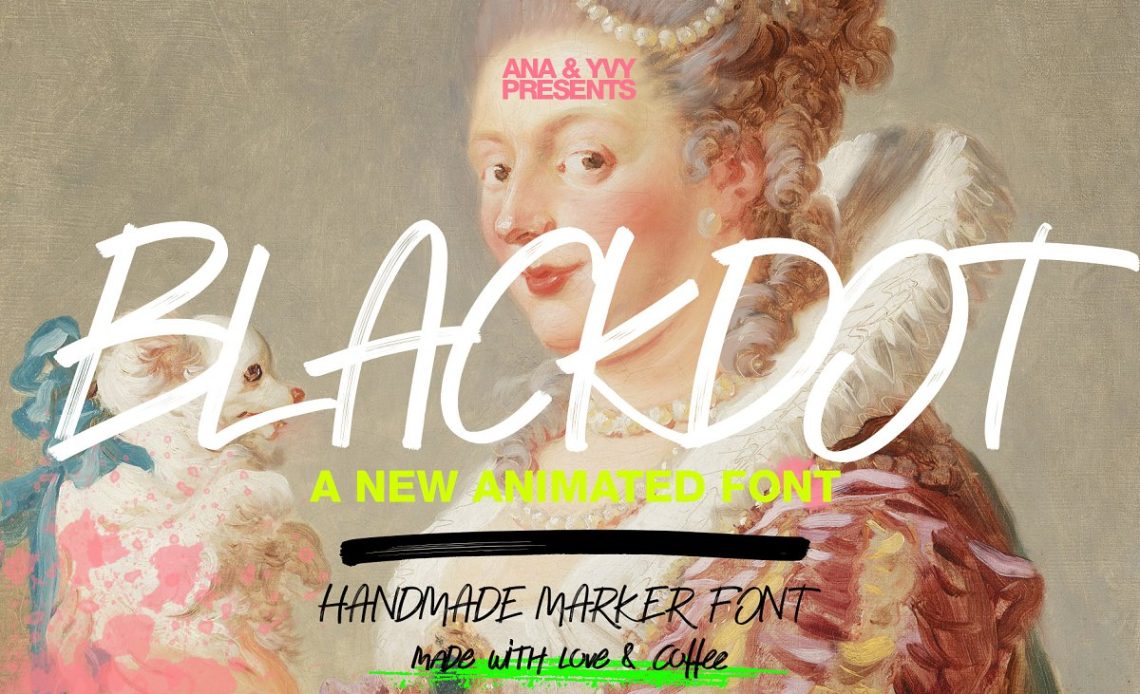
Welcome to BLACKDOT, the animated marker font designed by ana & yvy. If you're looking for a font that perfectly captures the rough and urban aesthetic, then this is the perfect choice for you. This font is a script font family that falls under the category of fonts for animation.
BLACKDOT is an eye-catching, hand-painted marker font that features a rough texture. It is perfect for dynamic designs that need to stand out. Whether you're creating a fashion or sports design, BLACKDOT is the perfect fit. With its unique style, this font is sure to capture the attention of your audience.
This font is available in both uppercase and lowercase letters, as well as alternate characters and signs. The animated version of the font is also available, which makes it perfect for use in various animation projects. Please ensure that your program supports alternates and ligatures to get the full effect of the font.